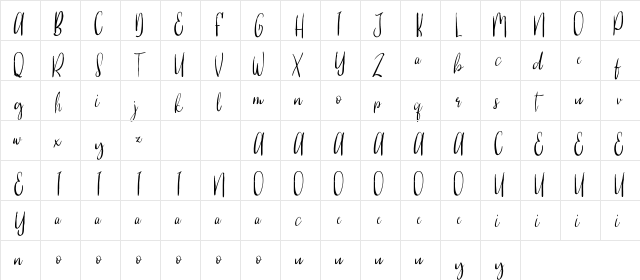
Because Of You Demo Dry Brush Regular
Design Context for Because Of You Demo Dry Brush Typeface
Because Of You Demo Dry Brush brings a calligraphic fluidity to the page — its connecting strokes and expressive curves give it an unmistakably human quality.
Font Pairing: Combine Because Of You Demo Dry Brush with a simple geometric sans for maximum contrast — the tension between flowing curves and clean structure is a classic typographic pairing.
Pro Tip: Use Because Of You Demo Dry Brush for short runs of text — names, titles, or taglines. Extended body copy in script faces tires the eye quickly.